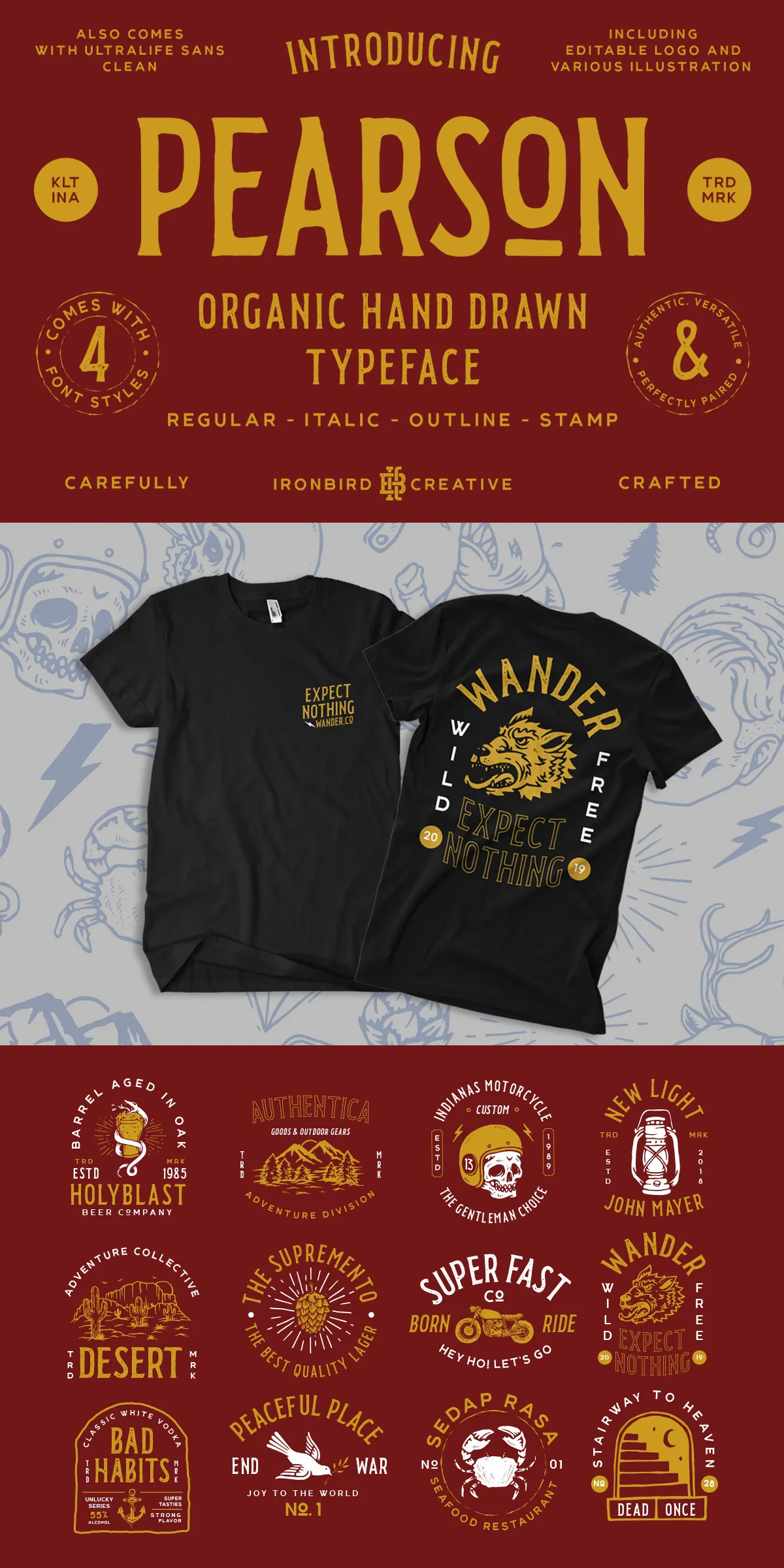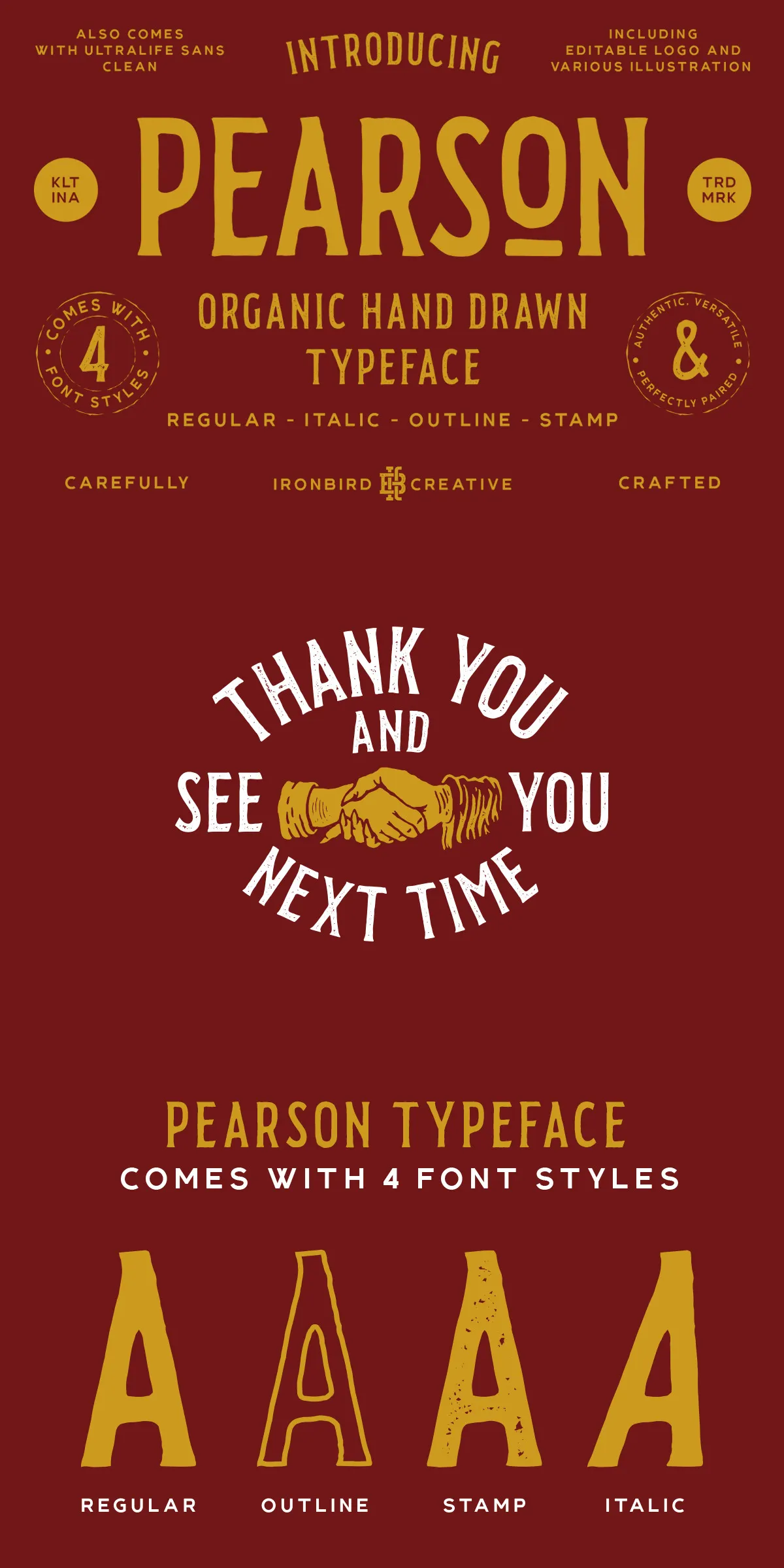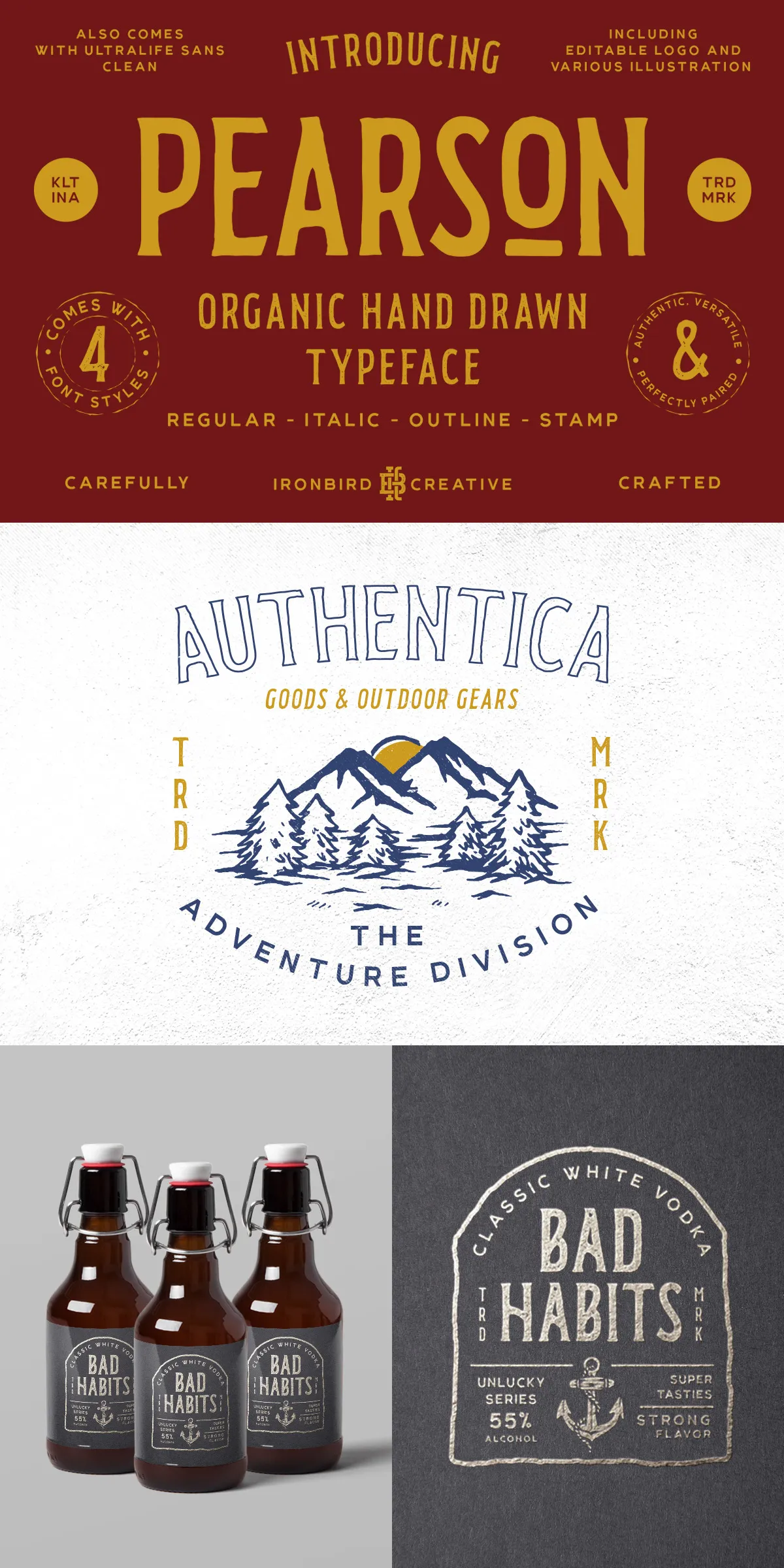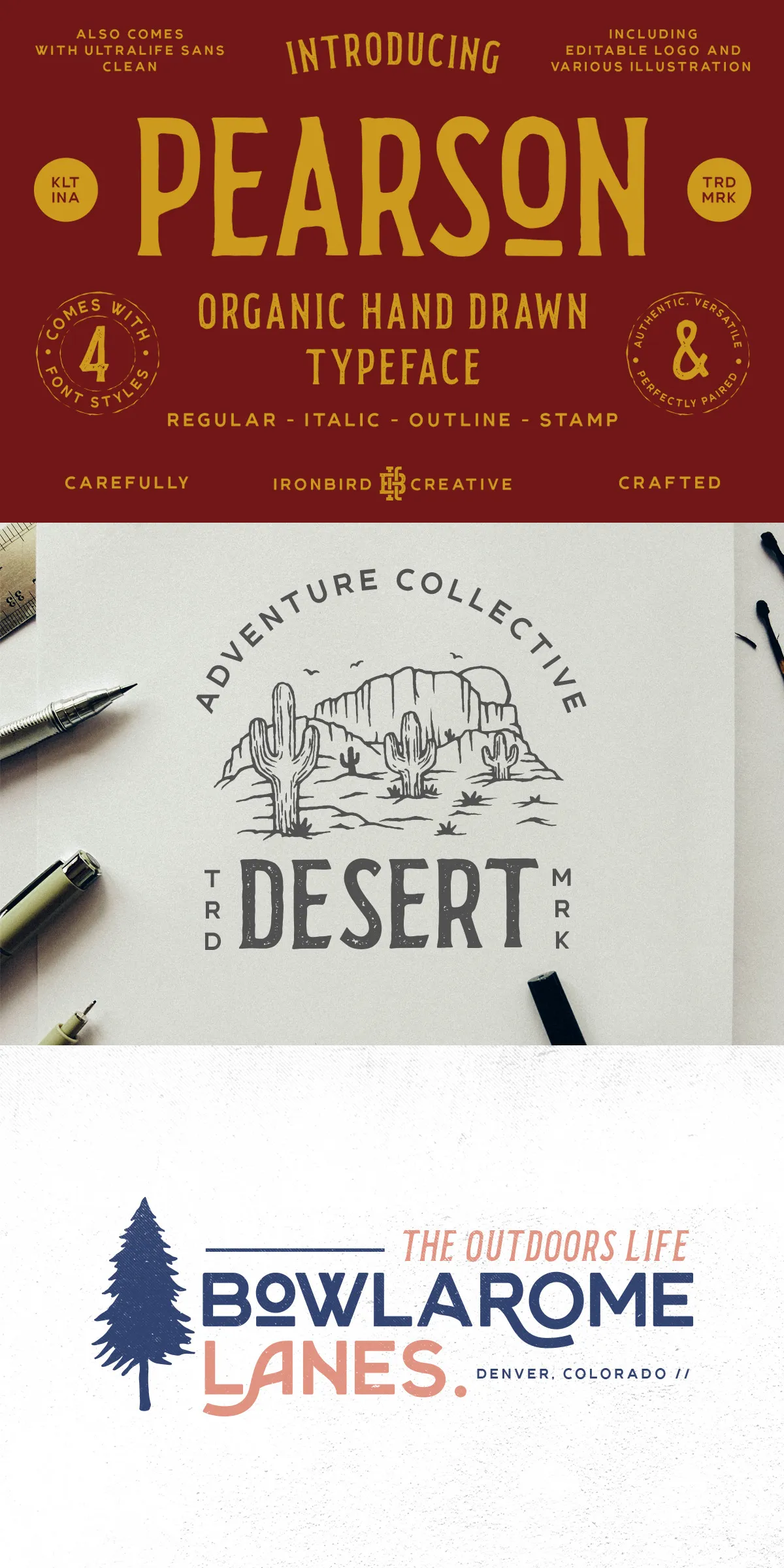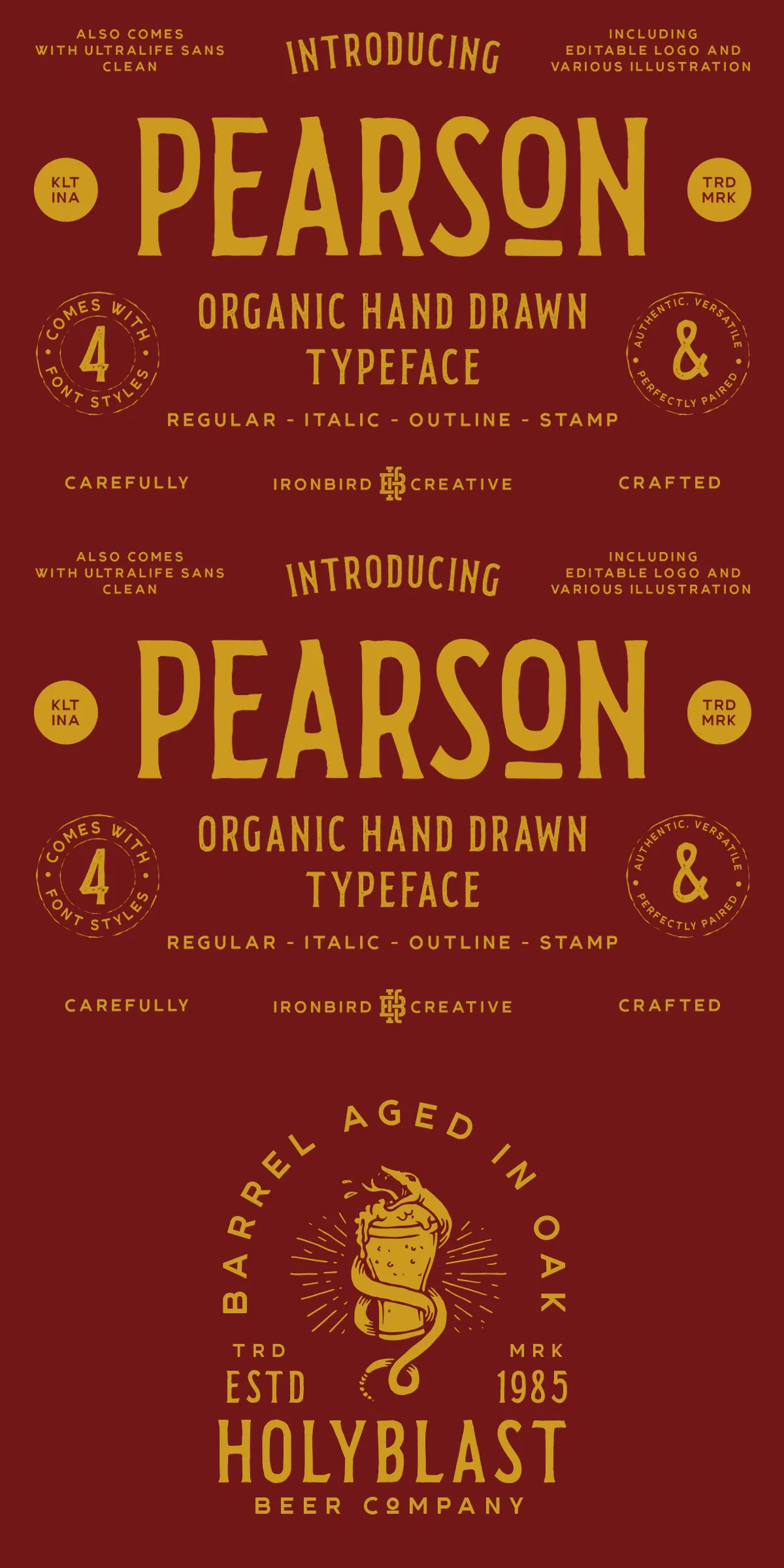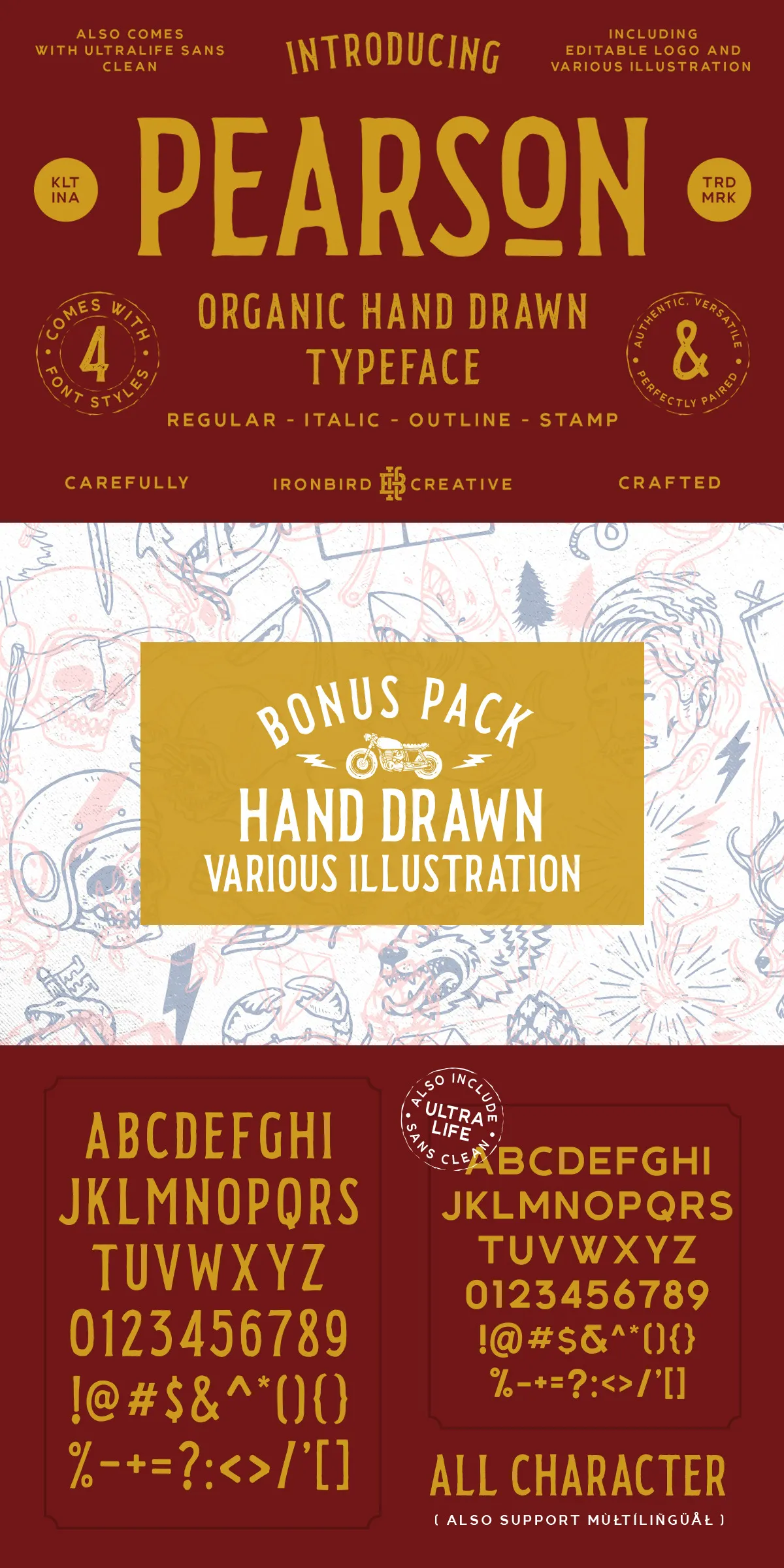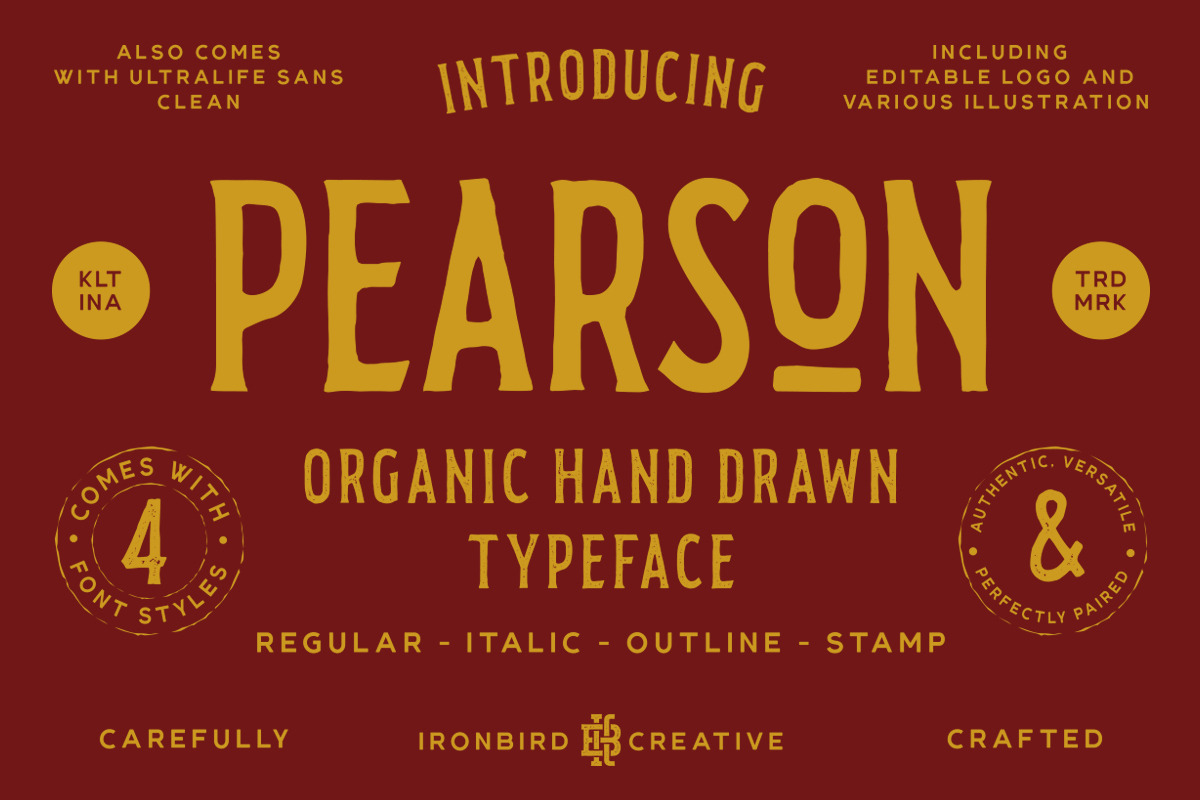
Pearson Typeface delivers an original, organic hand-drawn display aesthetic designed to evoke vintage, classic, and handcrafted charm. Built for designers who want authentic character in every letterform, Pearson combines a robust set of font styles with a clean companion sans and a rich library of mockup-ready assets. Use Pearson to add personality to logos, t-shirts, packaging, posters, business cards, and photography overlays. The family ships PUA-encoded for easy access to alternates and stylistic sets and it includes both OTF and TTF formats for reliable cross-platform performance.
How To Use Pearson Typeface Effectively In Designs
Start by selecting a Pearson style that matches your desired tone: use `Regular` for bold headlines, apply `Outline` to create lightweight, airy marks, deploy `Italic` for dynamic taglines, and choose `Stamp` when you need a weathered, distressed finish. Pair Pearson with `Ultralife Sans Clean` for balanced typography: set the display headline in Pearson and use Ultralife Sans for body copy, subheads, and captions. Open the editable logo templates, replace the placeholder text, and adjust colors and spacing—each template uses live text so you maintain editability.
Practical Design Recommendations And Pairings
Combine Pearson’s `Stamp` style with warm paper textures for authentic vintage packaging. Layer `Outline` titles over subtle gradients when creating hero banners or posters. Use `Italic` for energetic taglines in apparel designs or product labels. When you need clean, readable UI or long-form text, switch to `Ultralife Sans Clean` to preserve legibility while keeping visual harmony across your project.
Why Choose Pearson Typeface For Your Projects
Pearson speeds creative workflows by bundling a character-rich display family, a clean sans companion, editable logo templates, and a collection of hand-drawn illustrations. Designers gain immediate access to cohesive assets that reinforce brand identity across print and digital formats. Whether you craft vintage-inspired apparel, boutique packaging, or expressive social content, Pearson supplies the handcrafted voice and flexible tools to produce distinctive, polished results quickly.